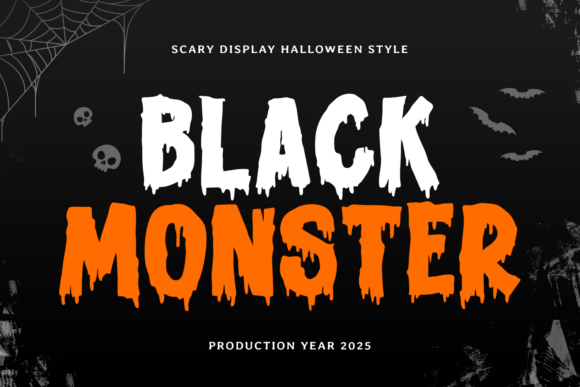
Unleash the Terror: A Deep Dive into the Black Monster Font
As a designer, I’ve had my fair share of late nights scrolling through font libraries, searching for that perfect typeface to bring a project to life. But one project that still haunts me (pun intended) was a Halloween-themed party invitation for a friend. I wanted to create something that would send shivers down the spines of the guests, but I just couldn’t find the right font. That was until I stumbled upon the Black Monster font. With its bold, angular letterforms and sharp, beastly edges, it was the perfect fit for my spooky design.
A Fear-Inducing Font: First Impressions
The Black Monster font is a daring and menacing display typeface that embodies the essence of Halloween horror. Its heavy structure and ominous details create an impactful visual that grabs attention and sets the tone for fear and excitement. Whether you’re planning a spooky movie marathon or a monster-themed party, this font brings an unmistakable horror touch to your Halloween creations.
So, what do I love about the Black Monster font? Here are a few things that make it stand out:
• Bold and eye-catching: The font’s bold structure and sharp edges make it perfect for grabbing attention.
• Perfect for Halloween-themed projects: The font’s spooky vibe makes it ideal for Halloween-themed designs, from haunted house signs to horror-themed event posters.
• 💡 Versatile: Despite its bold design, the font can be used for a variety of projects, from digital designs to print materials.
However, there are a few quirks to consider:
• 🤔 Limited use cases: While the font is perfect for Halloween-themed projects, it may not be suitable for other designs that require a more subtle approach.
• ⚠️ Legibility at small sizes: The font’s bold design can make it difficult to read at small sizes, so it’s best used for headlines or titles.
One of the best things about the Black Monster font is its OpenType features and glyphs. With a range of stylistic alternates and glyphs to choose from, you can customize your designs to make them truly unique. Here are a few tips for using OpenType features and glyphs:
• 💡 Experiment with stylistic alternates: The Black Monster font comes with a range of stylistic alternates that can add a touch of personality to your designs.
• 🔍 Explore glyphs: The font also comes with a range of glyphs that can be used to add decorative elements to your designs.
The Story Behind Black Monster
The Black Monster font was designed by a team of creatives who wanted to create a font that would capture the essence of Halloween horror. Inspired by classic horror movies and haunted houses, the team set out to create a font that would send shivers down the spines of designers and non-designers alike. With its bold, angular letterforms and sharp, beastly edges, the Black Monster font is the perfect fit for any Halloween-themed design.
Q: Is the Black Monster font easy to read?
A: The Black Monster font is a bold, display font that’s best used for headlines and titles. While it can be used for body text, it may not be the most legible option.
Q: Can I customize the Black Monster font?
A: Yes, the Black Monster font comes with a range of OpenType features and glyphs that can be used to customize your designs.